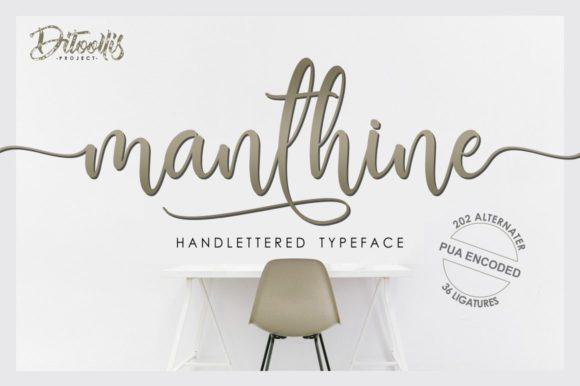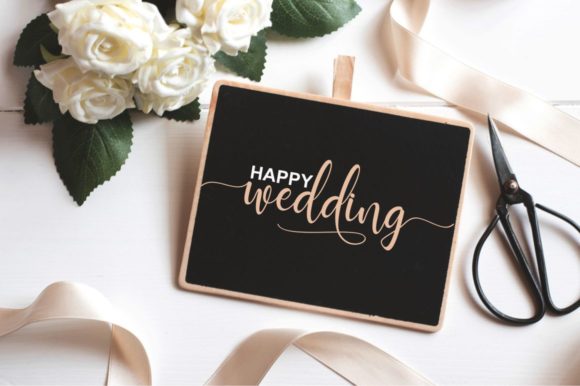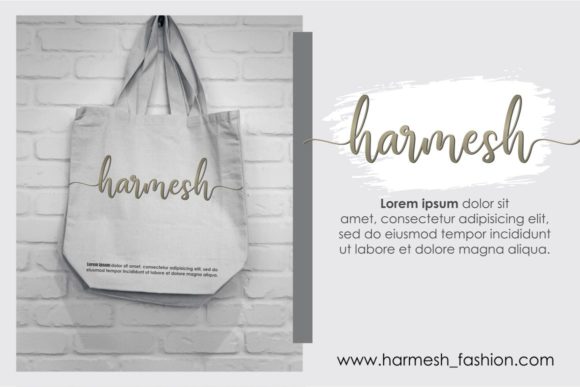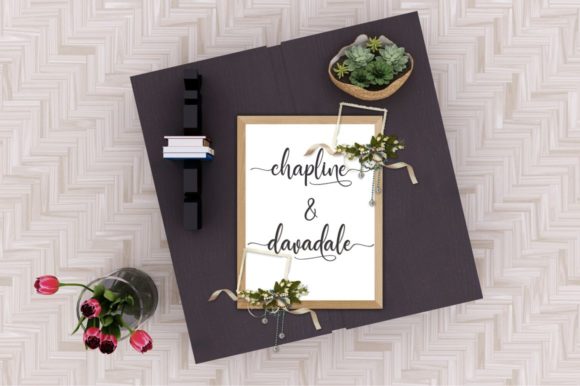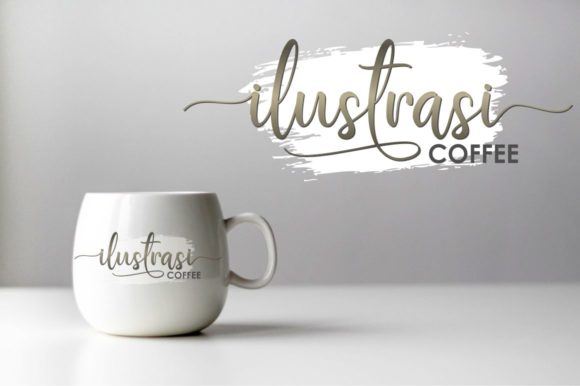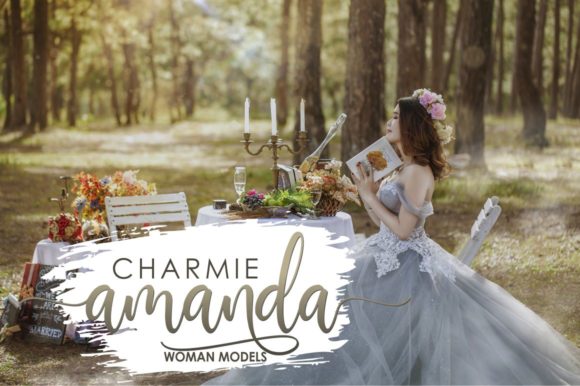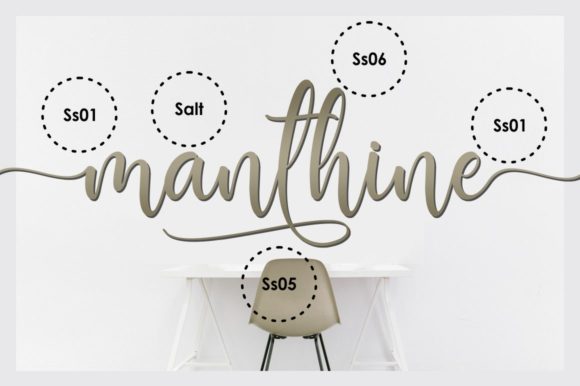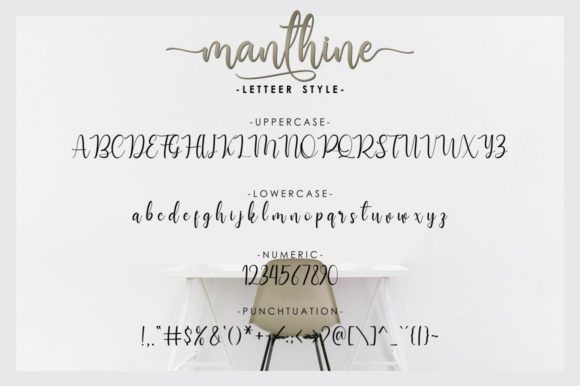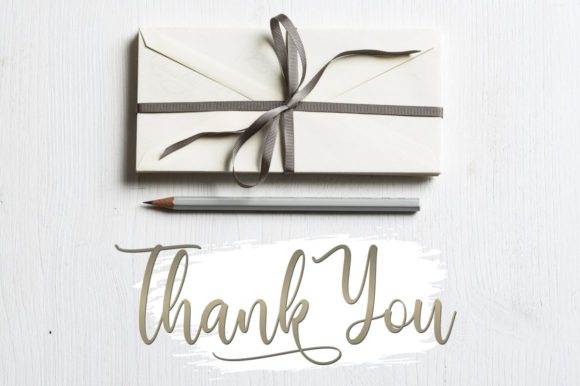
HomeScript FontsManthine Font Script Fonts Manthine Font FacebookXPinterestWhatsApp Manthine Font Poster 2 Manthine Font Poster 3 Manthine Font Poster 4 Manthine Font Poster 5 Manthine Font Poster 6 Manthine Font Poster 7 Manthine Font Poster 8 Manthine Font Poster 9 About Manthine Font Beauty lies in simple things: Manthine is a stunning script that features an incredibly casual, yet elegant look. DOWNLOAD NOW People also explored Authentic Signature Font Harington Font Bhiter Font Journey of Flower Font Ale House Font Recomended Font Andrea Karime Font Lovestrong Font Black Heather Triblend Bella Canvas 8413 391 0 TagsManthine Font Previous articleEnthrall FontNext articleOmarbig Font LEAVE A REPLY Cancel reply Comment: Please enter your comment! Name:* Please enter your name here Email:* You have entered an incorrect email address! Please enter your email address here Website: Save my name, email, and website in this browser for the next time I comment. Personal Use Free Open Store Personal Use Free Read more about this font Nuku Nuku Personal Use Free Read more about this font Scoothlane Personal Use Free Read more about this font Cloudy Night Personal Use Free Read more about this font BLOG 5 Fonts That Will Dominate Design Trends in 2026 5 Fonts for 2026 That Will Dominate Design Trends Typography plays a critical role in visual communication, and as we look ahead to 2026, it’s... Elegant Wedding Invitation Fonts – Handwritten & Script Fonts Best Fonts for YouTube Videos: Make Your Thumbnails Stand Out Where to Buy American Fonts Online in 2024